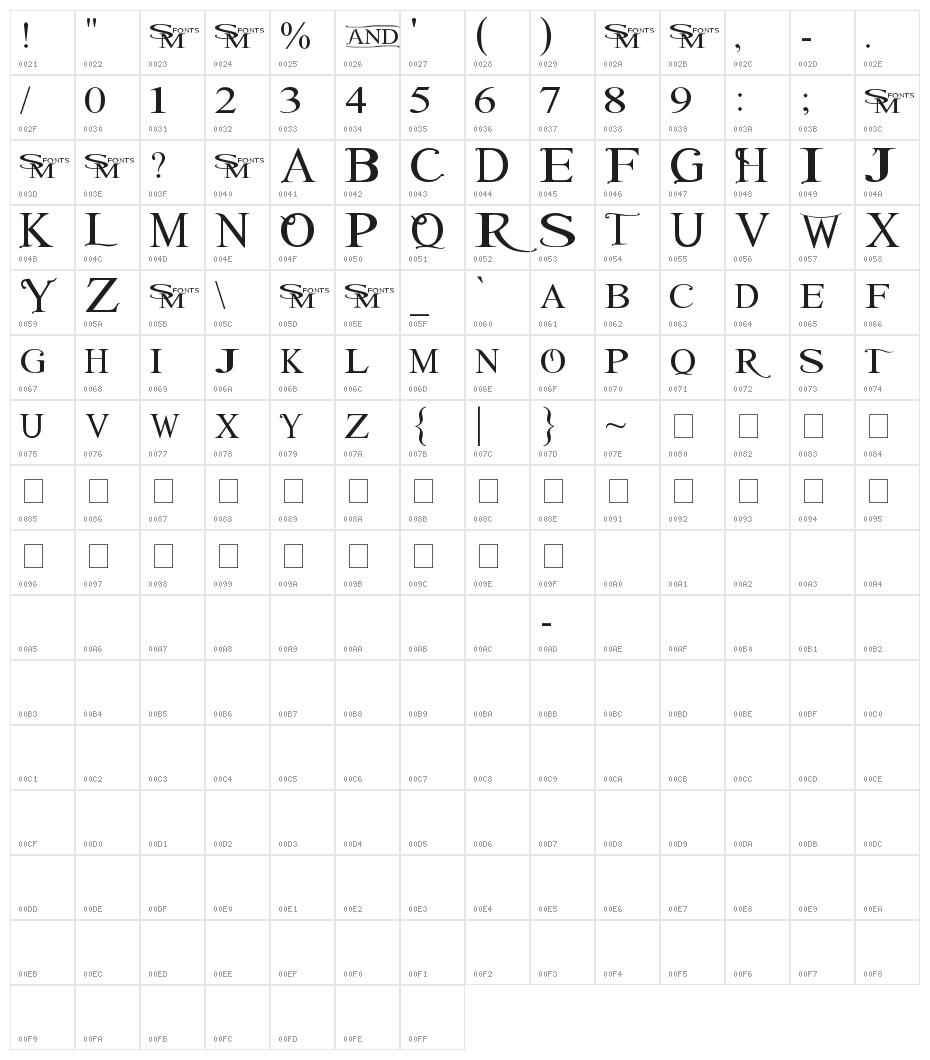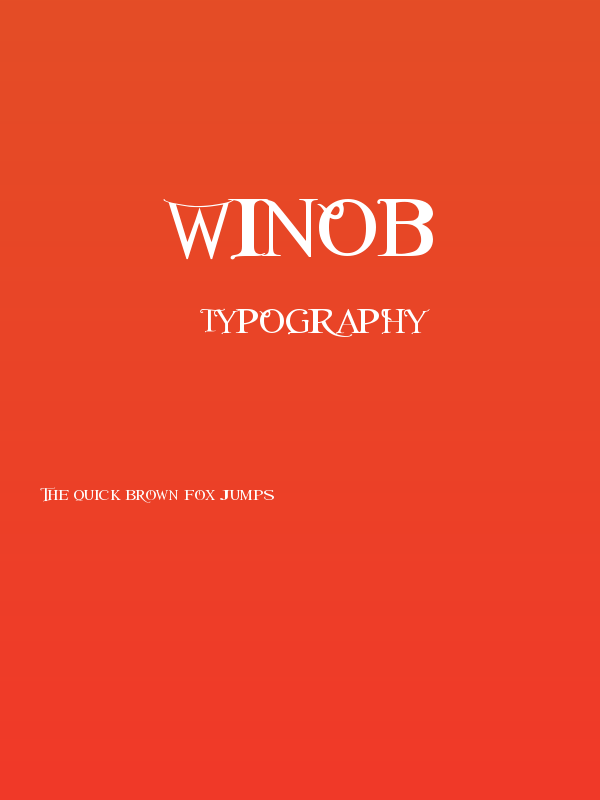
winob Font
winob Description
This font is a decorative serif typeface characterized by its elegant and ornate design. The uppercase letters feature unique embellishments, such as swashes and flourishes, particularly noticeable in letters like 'P', 'R', and 'S'. The lowercase letters maintain a more traditional serif style, providing a balance between readability and decorative flair. The numerals are bold and slightly condensed, matching the overall sophisticated aesthetic. Special characters, including punctuation and symbols, are designed with similar ornate details, enhancing the font's cohesive appearance.
| Use Case | Logos, Headlines, Invitations |
| Proposed Projects | Ideal for wedding invitations, luxury branding, book covers, and high-end product packaging. |